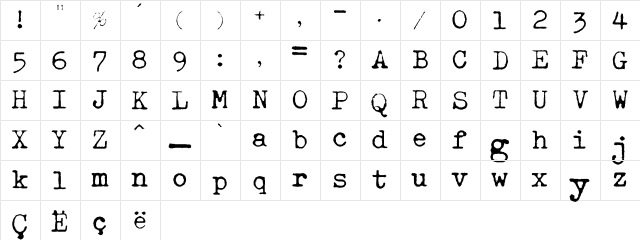
Esat Hoxha NRML Regular
Design Context for Esat Hoxha NRML Typeface
Esat Hoxha NRML is a composed and adaptable typeface that performs quietly and consistently across a wide range of design contexts.